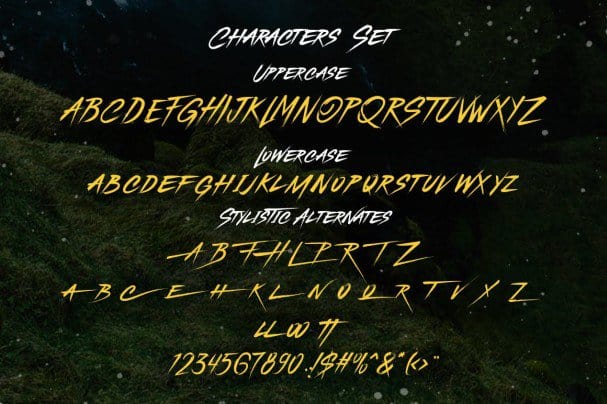
Unleash your creativity with Floresh Typeface Brush Font, a vibrant and dynamic font that adds an artistic flair to any project.
Floresh Typeface Brush Font
Welcome to the world of Floresh Typeface Brush Font, where creativity meets artistic expression. This unique brush-style font is designed to bring an expressive and lively touch to your projects, making it the perfect choice for anyone looking to stand out.
About Floresh Typeface Brush Font
Floresh is not just a font; it’s a versatile tool to spice up your designs. With its bold strokes and organic shapes, it replicates the natural feel of hand-painted brush art. Whether you’re designing a logo, crafting an engaging social media post, or creating an expressive piece of art, Floresh is here to bring your vision to life.
Key Features
- Expressive Brush Strokes: Each character is crafted to imitate natural brush strokes, giving your text a vibrant and lively appearance.
- Versatile Application: Perfect for a variety of projects including posters, branding, invitations, and digital artwork.
- High Quality: Ensures clear readability and beautiful aesthetics even at large sizes.
Why Choose Floresh Typeface Brush Font?
- Uniqueness: Stand out from the crowd with this visually striking font that captures attention.
- Creativity: Encourage creativity and deliver messages with impact and style.
Ideal Use Cases
- Posters and Flyers: Make your headlines pop with the bold and energetic design of Floresh.
- Artistic Projects: Perfect for digital and print artwork where a hand-crafted look is desired.
- Branding and Logos: Add uniqueness and flair to your brand identity with this eye-catching font.
Conclusion
Floresh Typeface Brush Font is more than just a stylistic choice; it’s a gateway to unleashing your full creative potential. Transform mundane designs into masterpieces full of life and character. Dive into your artistic journey with Floresh as your trusted companion.
Discover, create, and inspire with Floresh Typeface Brush Font today!